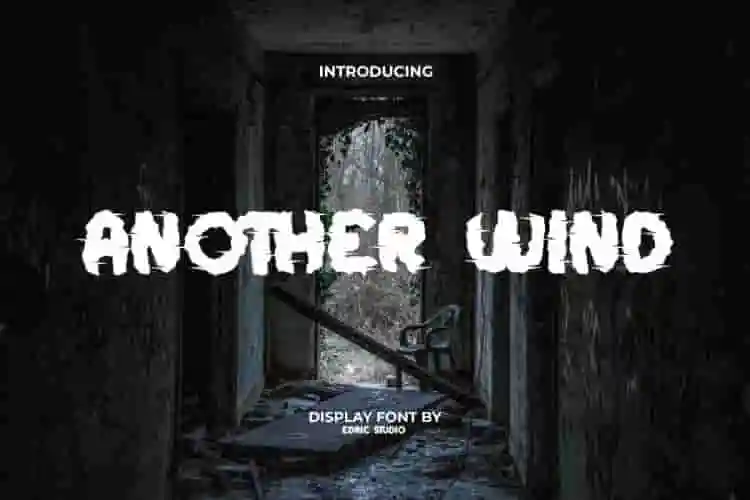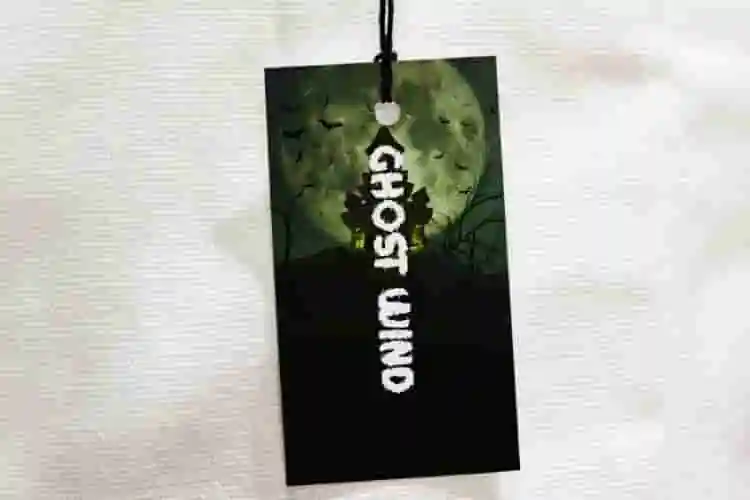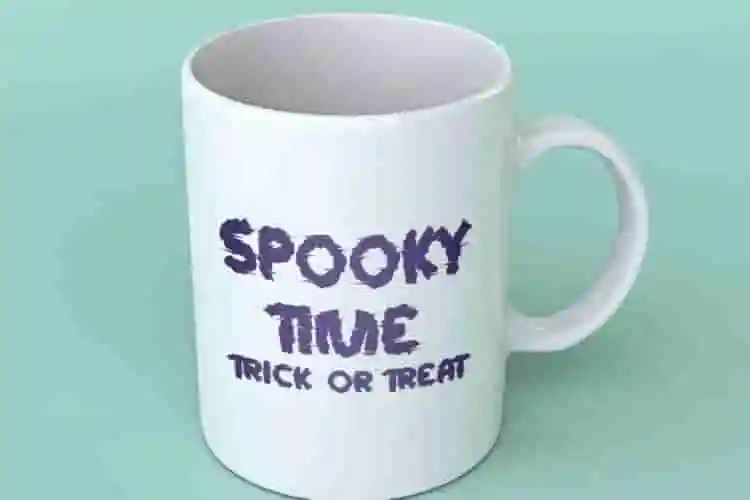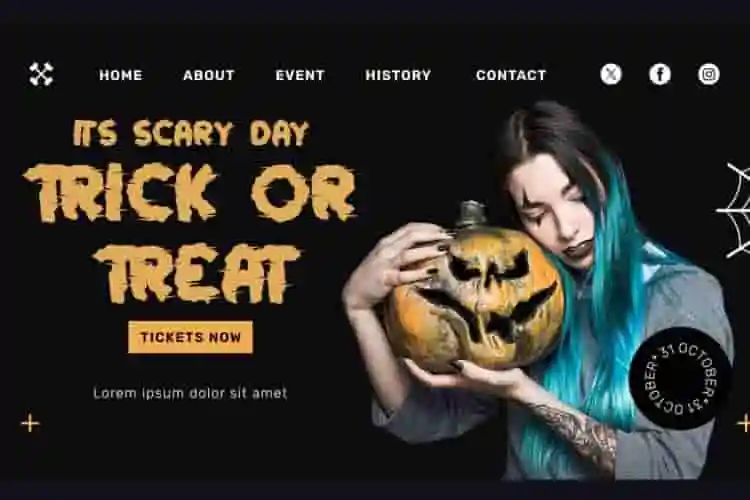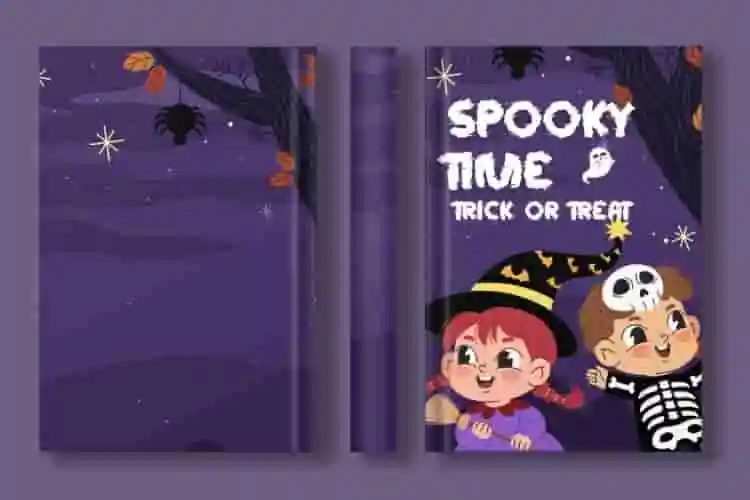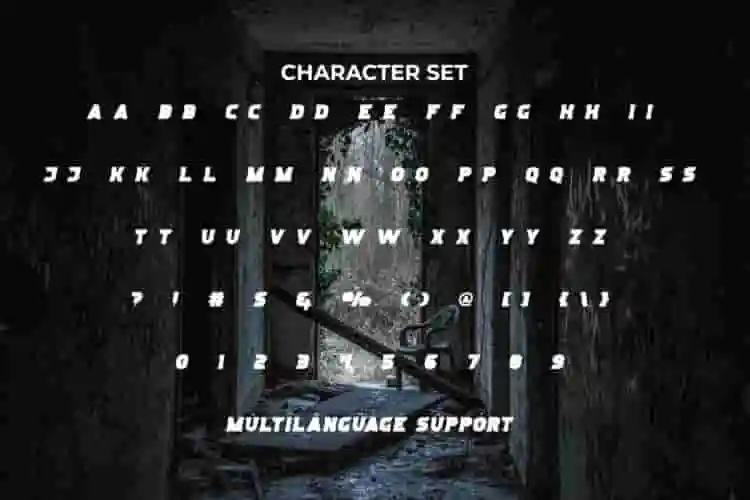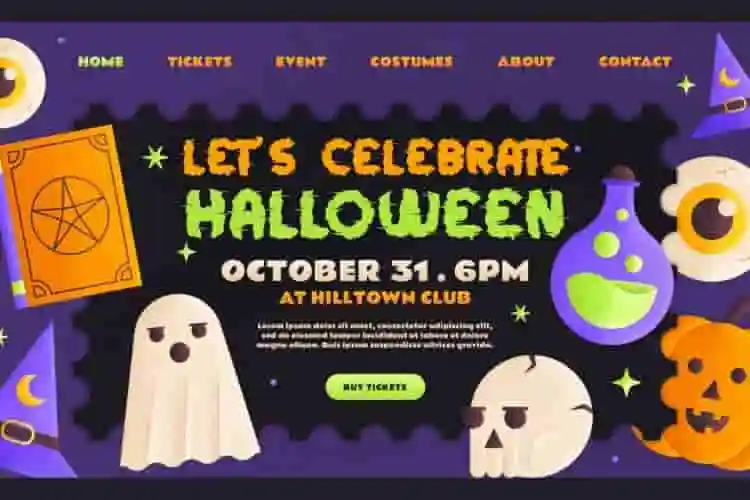
Another Wind Font is a fun yet horror themed display font with a gust effect that seems to pierce the body. This font is designed with a hideous genre that will be very suitable for use in designs that create a inelastic atmosphere such as, album cover, brochure, flyer, header, logos, packaging design, Halloween poster, product label, quotes, screen print, signage, sticker, tags, title, website, and anything else.
Another Wind Font comes with a full set of ALL CAPS for Uppercase and Lowercase letters, Number, Punctuation, and Symbol. This font is designed to meet your creative industry needs with a scary, suspenseful atmosphere and is so perfect for use in accessories, content creator, event organizer, film, game, graphic design, handicraft, horror cinema, merchandise, printing, publishing, web designer, etc.
Let your creativity flow with Another Wind Display Font — a modern, artistic display font that captures the feeling of movement, freedom, and bold self-expression. Inspired by natural elements and minimalist design, this font blends clean structure with airy personality.
Perfect for editorial layouts, fashion branding, social media graphics, product packaging, posters, and more — Another Wind Display Font makes every word feel intentional and elevated. Its sleek lines and elegant curves are made to display your message with clarity and artistic flair.
Whether you’re designing for a lifestyle brand, personal project, or creative agency, this display font adds a contemporary edge that feels fresh, balanced, and timeless.